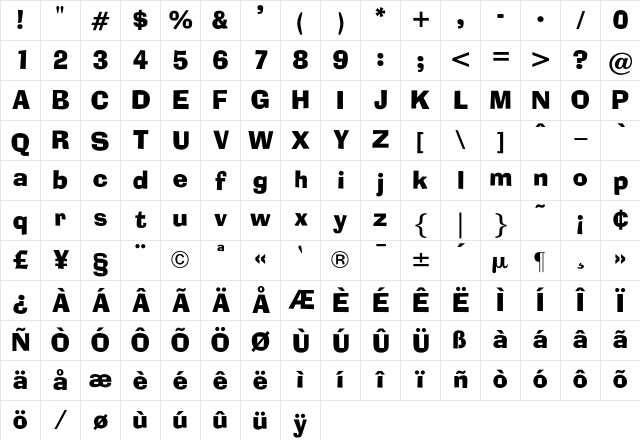
OPTIAdset Regular Free Font
OPTIAdset Regular
Foundry: Copr. Castcraft Software, Inc
Design Context for OPTIAdset
OPTIAdset is a composed and adaptable typeface that performs quietly and consistently across a wide range of design contexts.
Pro Tip: Use OPTIAdset in both headline and body roles to test its range before committing to a single application.
Who designed the OPTIAdset Regular font?